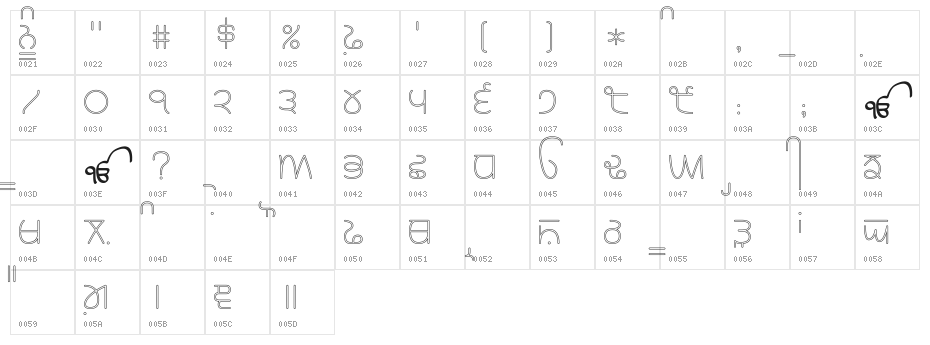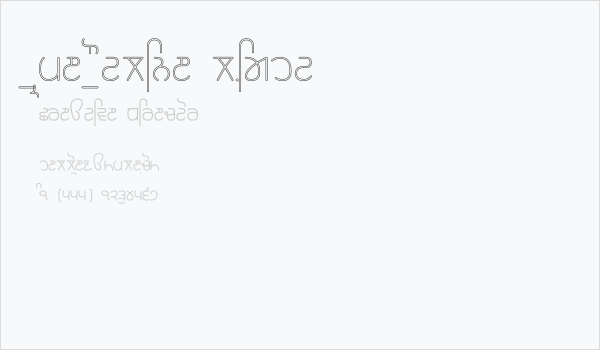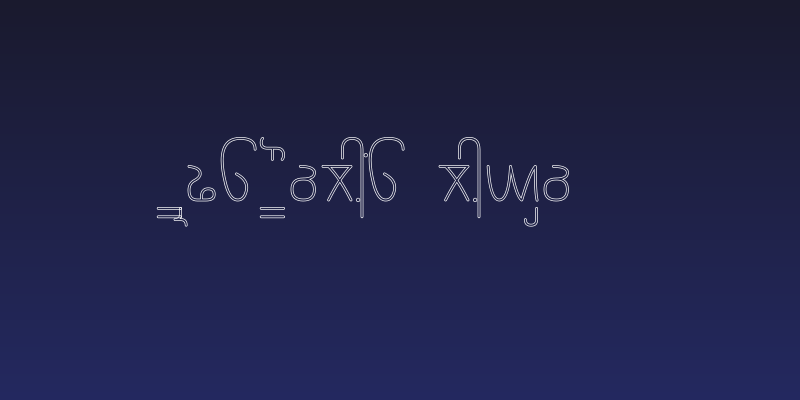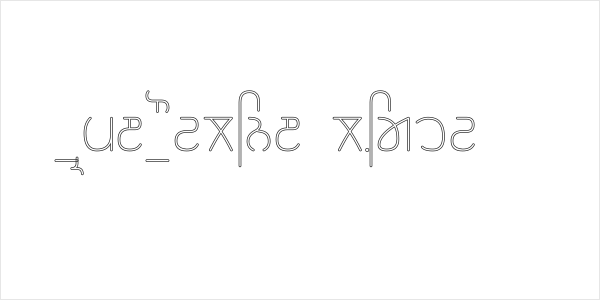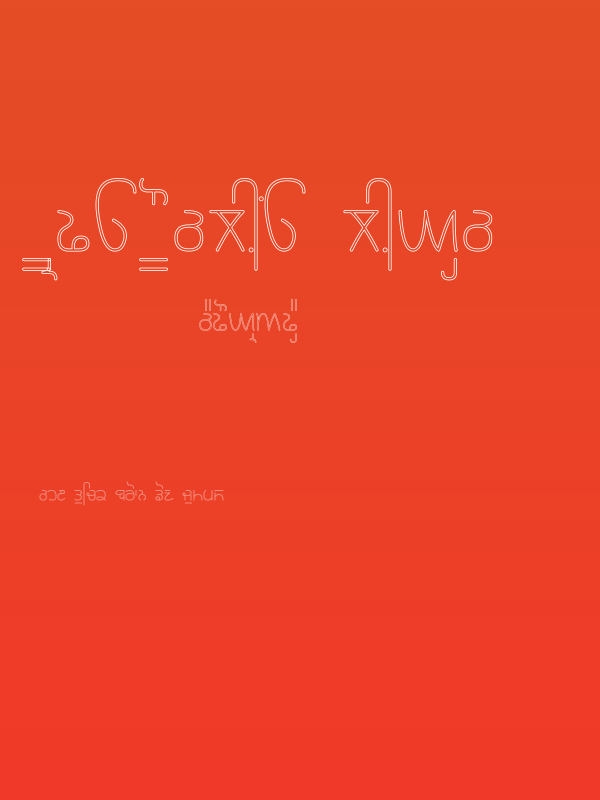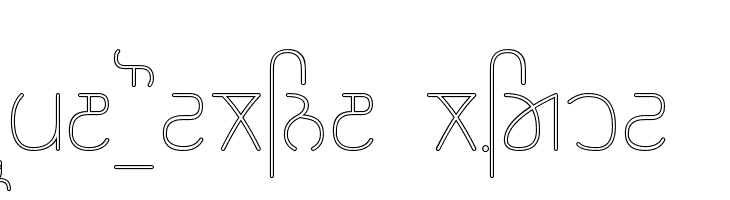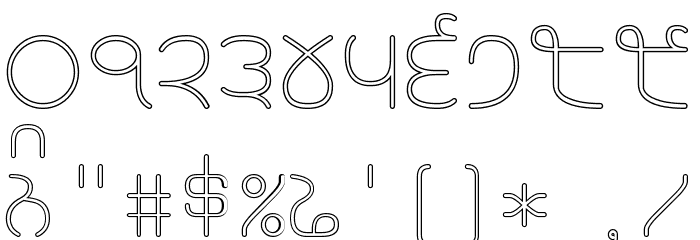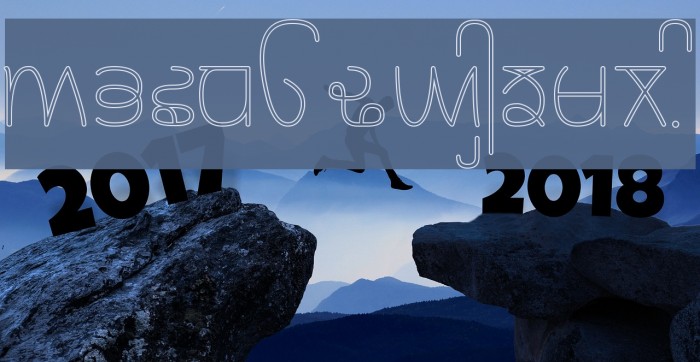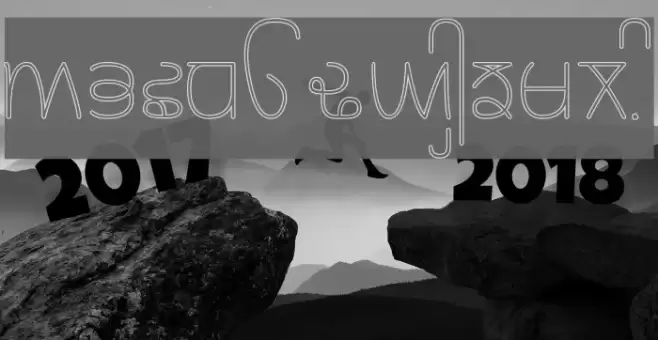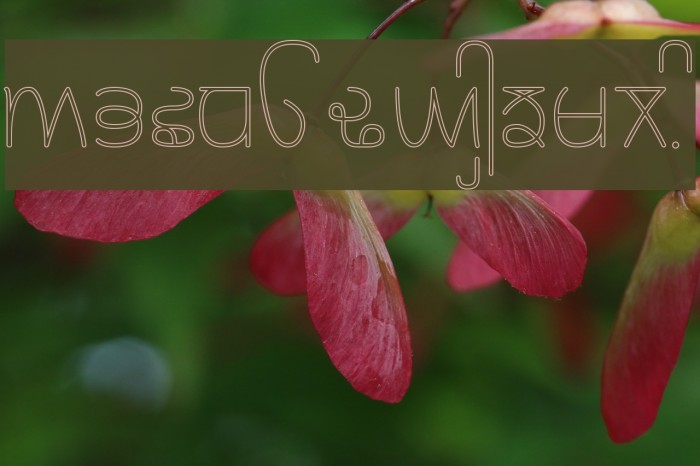
Rupe Outline Light Font
Rupe Outline Light Description
This font features a unique outline style with a light and airy appearance. The characters are composed of thin, continuous lines that form the outer edges of each letter, creating a hollow effect. The design is modern and minimalistic, with a playful and artistic flair. The uppercase and lowercase letters maintain a consistent height, while the numbers and special characters complement the overall aesthetic. The font's distinct style makes it suitable for creative and contemporary projects, where a touch of elegance and sophistication is desired.
| Proposed Projects | Ideal for creative projects such as posters, logos, and artistic designs where a unique and modern look is desired. |